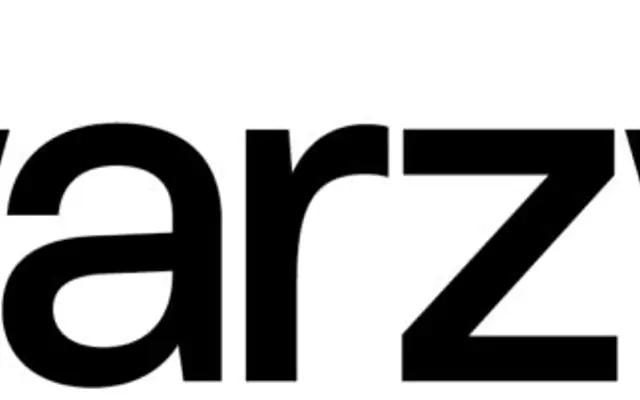
ES Schwarzweiss
Extraset · Alex Dujet
ES Schwarzweiss specimen from Extraset
A Swiss Grotesk designed by Alex Dujet across ten weights and matching italics, guided by Frutiger's theory of positive and negative space balance.
Built on classical Swiss Grotesk references, the family offers ten weights from Skeleton to Extrabold with corresponding italics and a variable font, totalling 20 styles. Ten stylistic sets give access to alternate letterforms and allow shifts between neutral text setting and more graphic titling. The drawing is rationalised to suppress visual noise while preserving a distinct minimalist character across broad Latin coverage.
Explicitly positioned within the Swiss Grotesk tradition, drawing on classical references and formal reduction consistent with the neo-grotesque genre, with attention to positive and negative space balance in the manner of Frutiger.